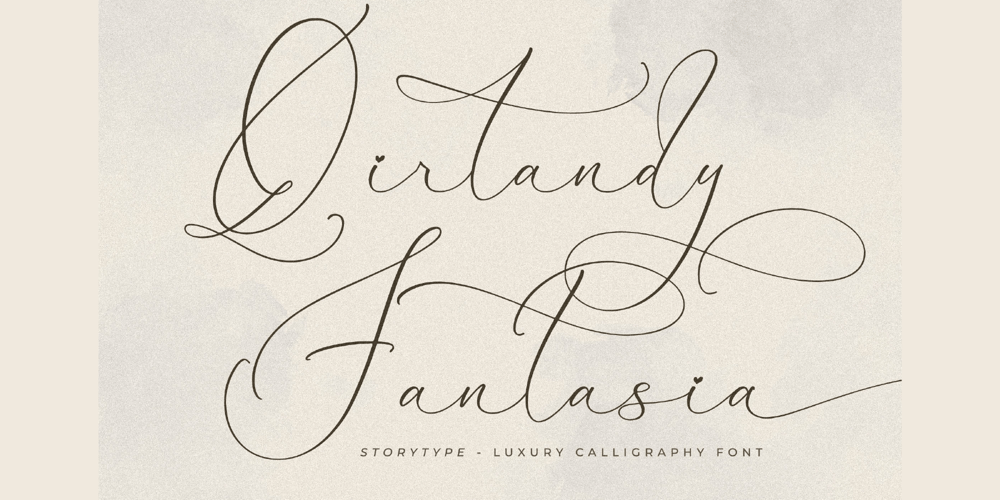
Qirtandy Fantasia
Qirtandy Fantasia font
Qirtandy Fantasia Font Family was designed by Heru Utama Putra and published by Letterena Studios. Qirtandy Fantasia contains 2 styles and family package options. Qirtandy Fantasia is an elegant and dainty handwritten font that features sweet and delicate swashes. This original look will appeal to a wide range of crafty ideas, from letterheads and titles to stationery.